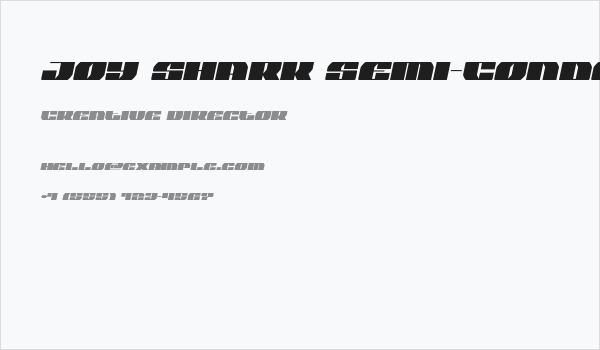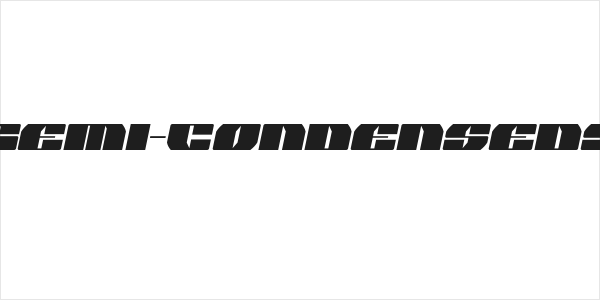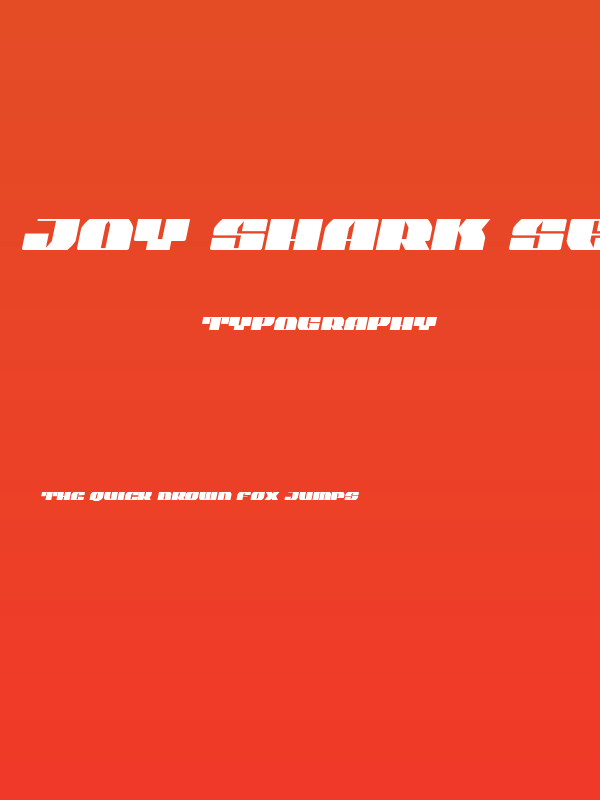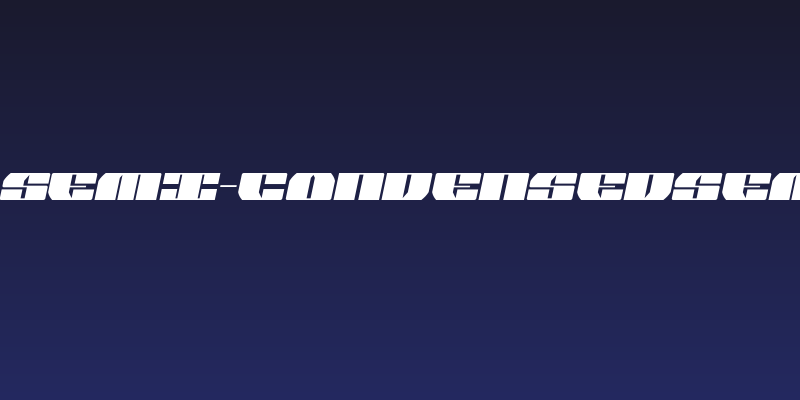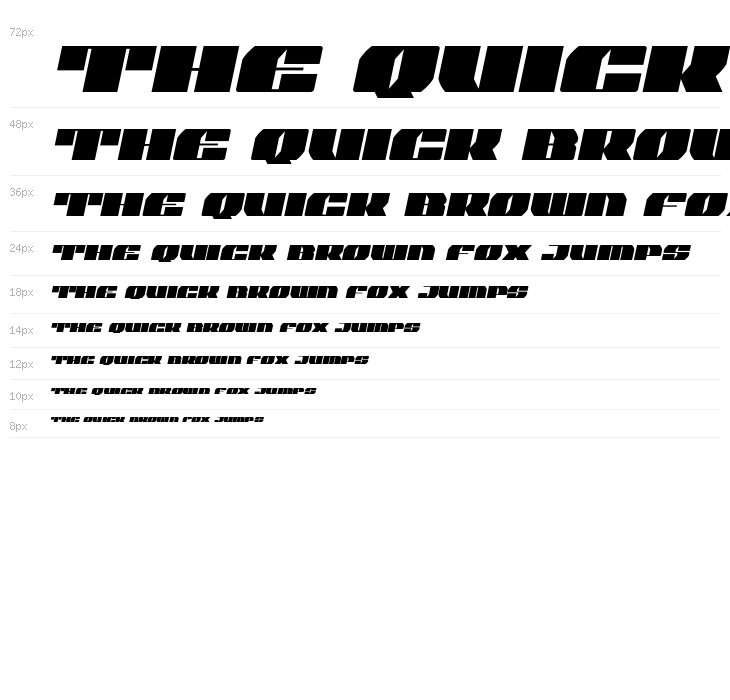
Joy Shark Semi-CondensedSemi-Italic Font
Joy Shark Semi-CondensedSemi-Italic Description
This font features a bold and dynamic design with a semi-condensed structure. The characters exhibit a strong geometric influence, with sharp angles and a distinct italic slant that adds a sense of motion and energy. The uppercase and lowercase letters maintain a consistent style, with wide, block-like forms that create a powerful visual impact. The numbers and special characters follow the same design principles, ensuring uniformity across all elements. The font's unique style makes it suitable for projects that require a modern and edgy aesthetic.
| Proposed Projects | Ideal for sports branding, action-themed posters, modern logos, and dynamic headlines. |